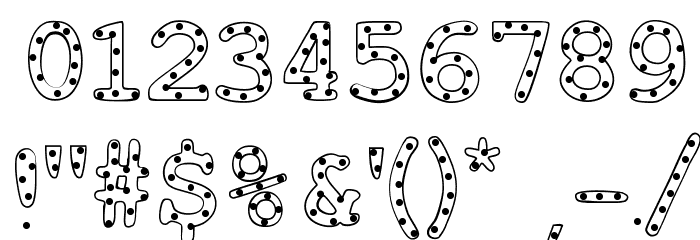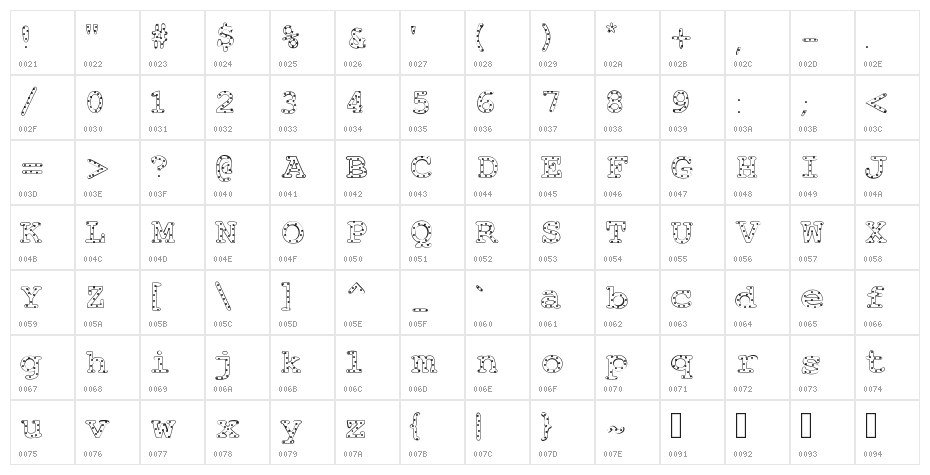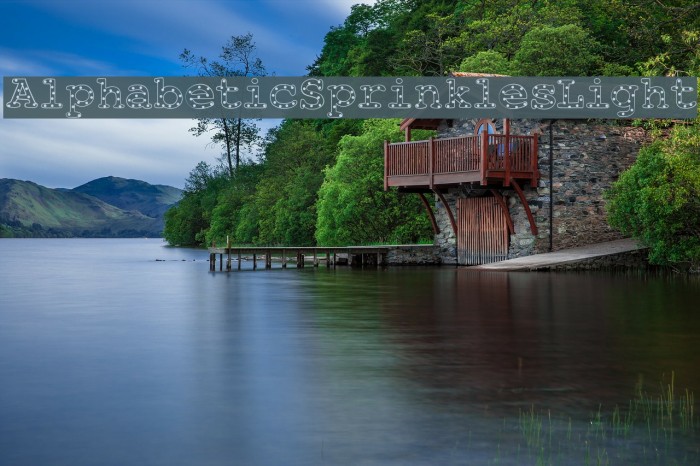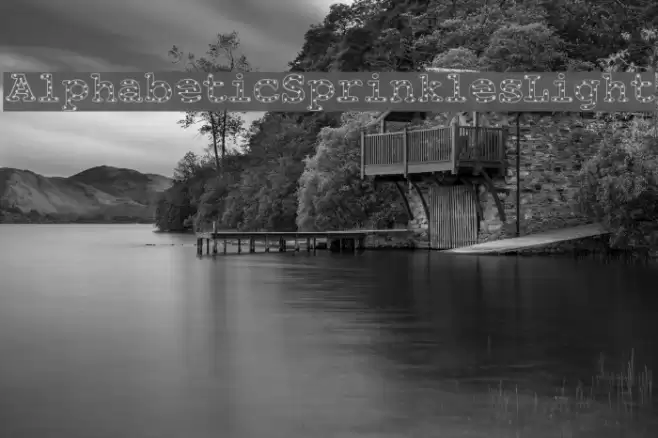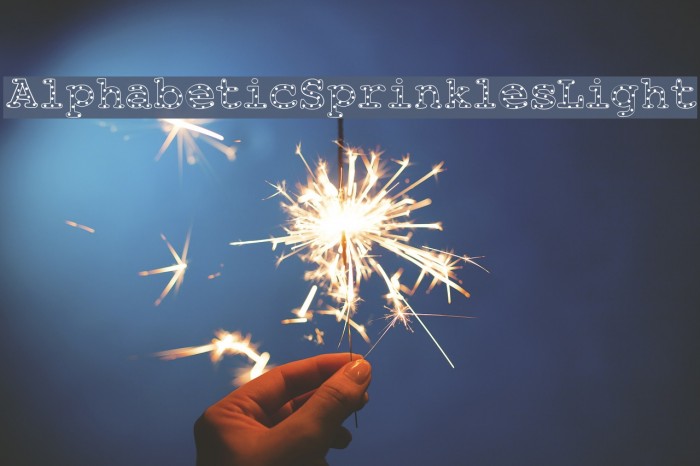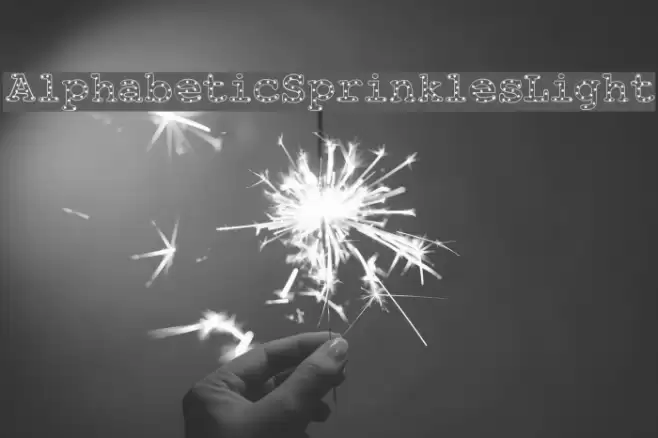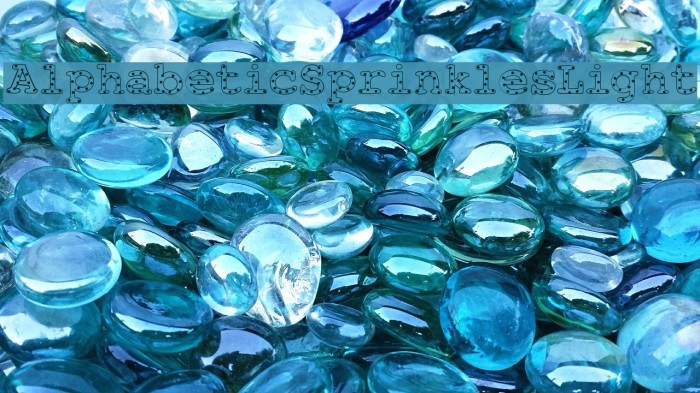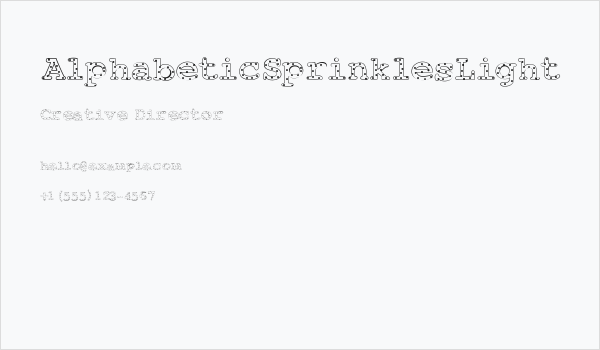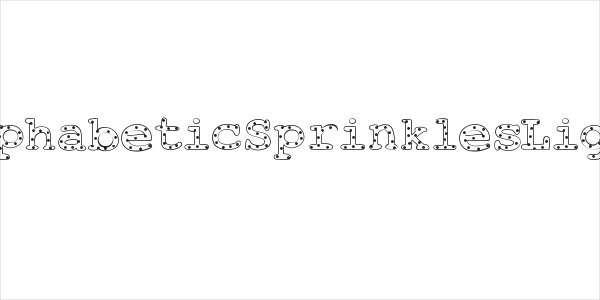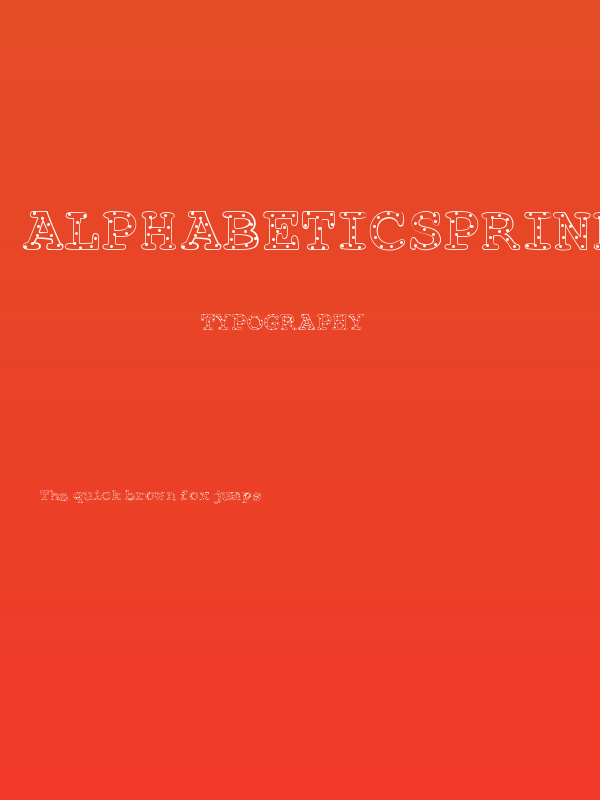
AlphabeticSprinklesLight Font
AlphabeticSprinklesLight Description
This font features a playful and decorative style, characterized by its outlined letters adorned with small circular dots resembling sprinkles. The uppercase and lowercase letters maintain a consistent design, with rounded edges and a whimsical appearance. The numbers and special characters follow the same decorative theme, making the font cohesive and visually engaging. Its unique style is perfect for projects that require a fun and lighthearted touch, such as children's books, party invitations, or playful branding. The font's decorative elements make it stand out, while its clear structure ensures readability.
| Proposed Projects | Ideal for children's books, party invitations, playful branding, and creative posters. |